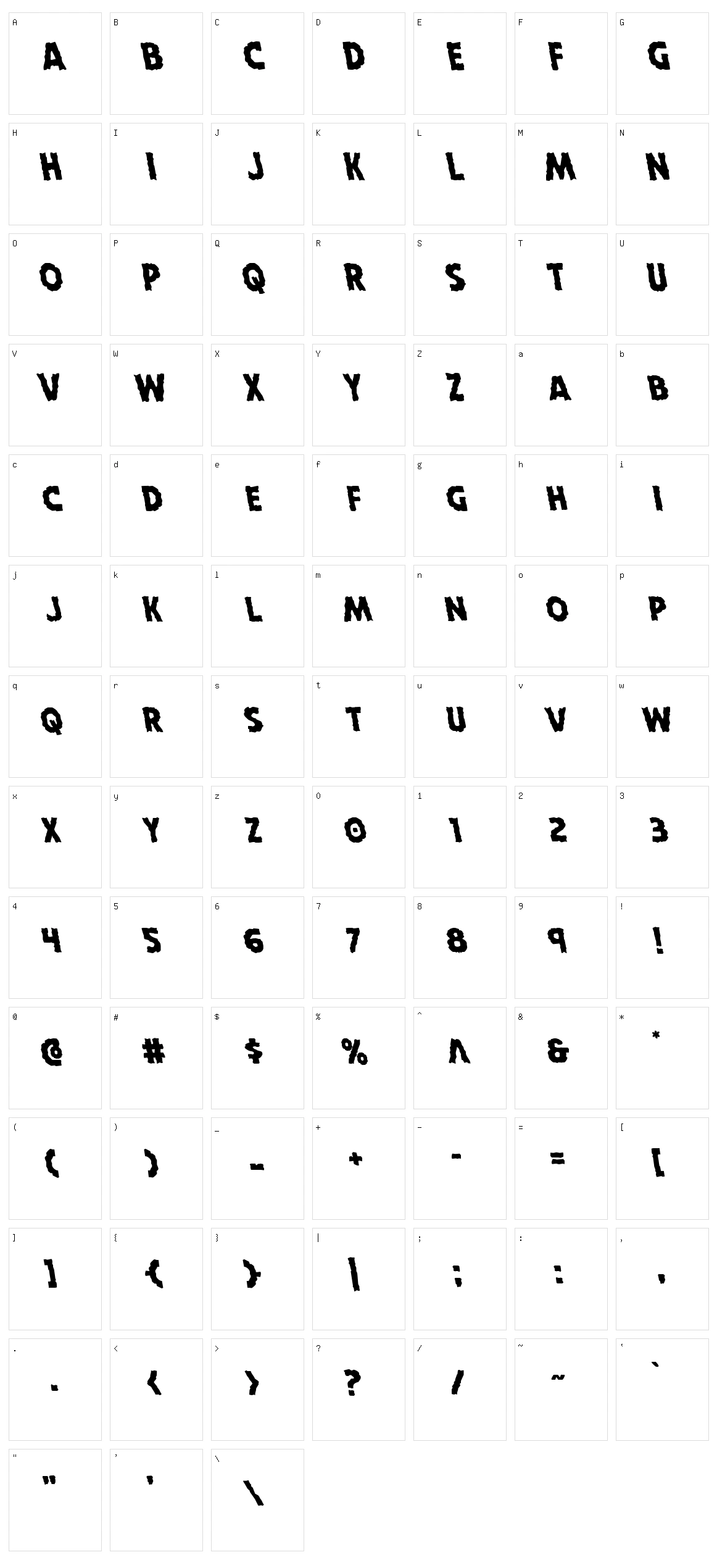
This font comes with the following 21 versions: Regular, Italic, Expanded, Expanded Italic, Condensed, Condensed Italic, Bold, Bold Italic, 3D, 3D Italic, Outline, Outline Italic, Academy, Academy Italic, Rotated, Rotated 2, Staggered, Staggered Italic, Staggered Rotalic, Rotalic and Leftalic.